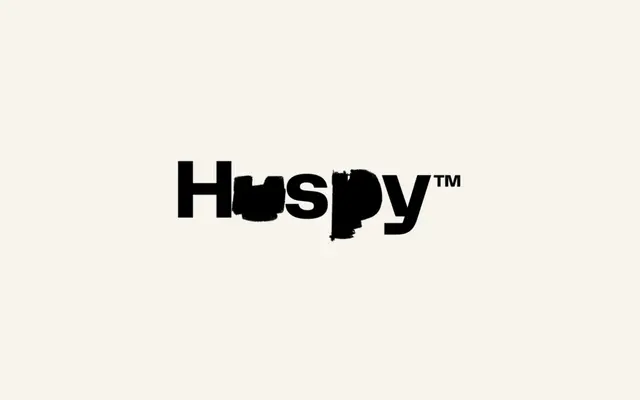
Telegraf
Pangram Foundry · Nick Losacco, Samuel Salminen
A brutalist-leaning grotesque by Nick Losacco and Samuel Salminen, offering eight weights with two distinct angled cuts at 15° and 30°.
Telegraf takes mid-century grotesk forms and pulls them in a harder, more structural direction, with counters that become progressively more rectangular as weight increases. The family spans 24 styles across eight weights, with a 15° Slanted cut for editorial and long-form use and a more aggressive 30° Oblique for graphic, high-impact work. A variable font is included, and the glyph set covers a broad range of Latin Extended languages.
Telegraf is firmly a grotesque sans-serif, drawing from mid-century grotesk traditions while incorporating sharp, rigid angles and rectangular counters that give it a distinctly brutalist character.